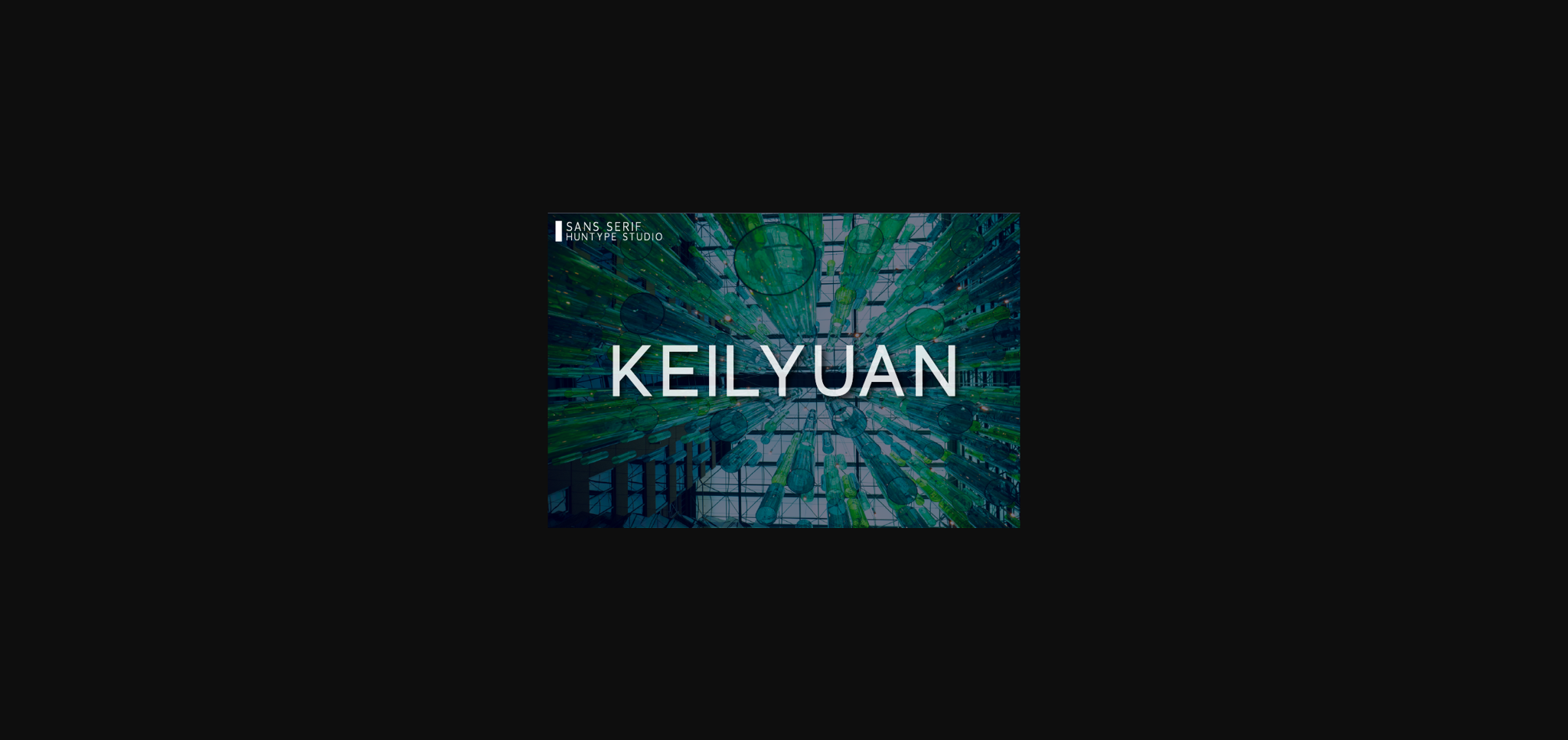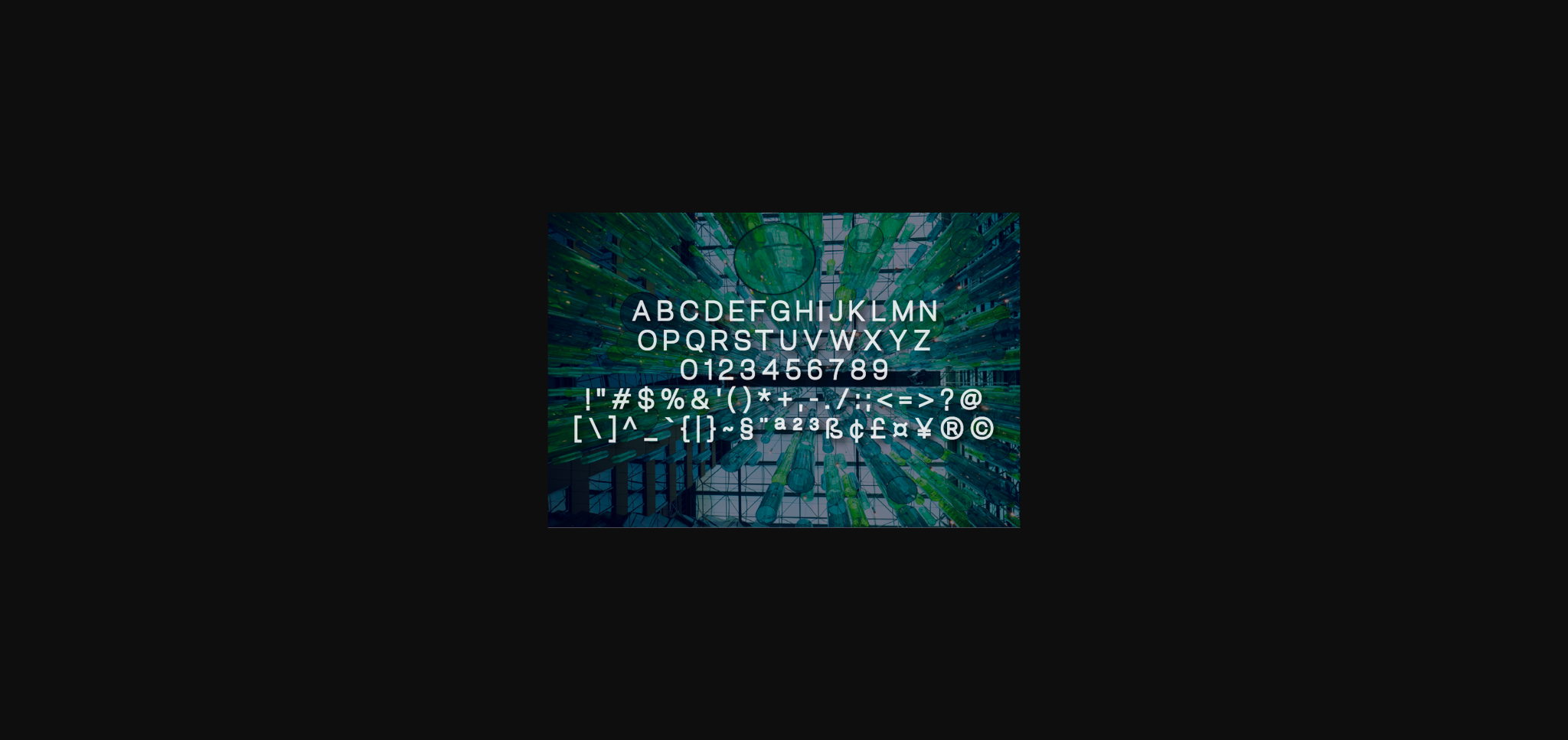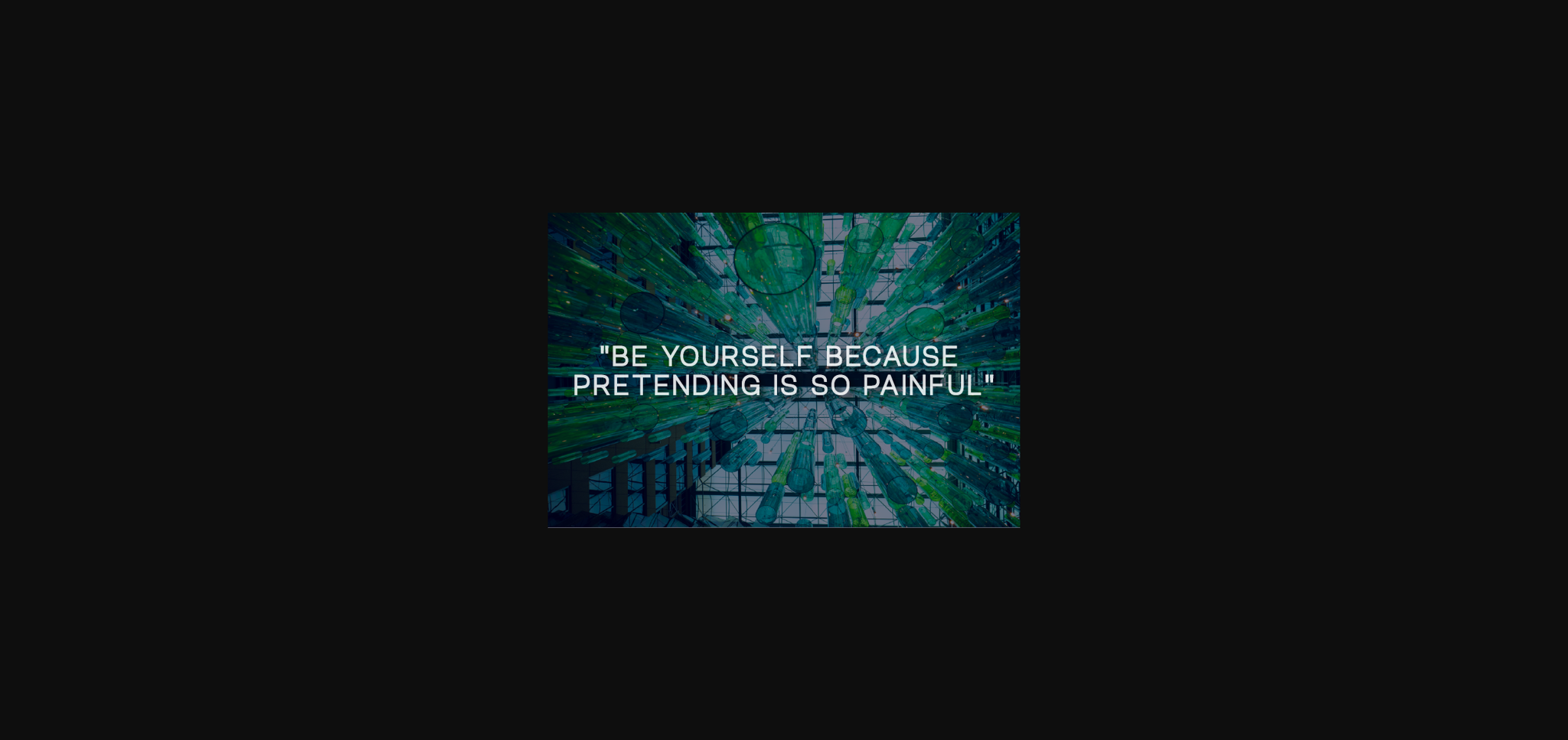
About Keilyuan Font
Keilyuan is a modern and minimalist sans serif typeface. It will look particularly adept when used in logos, branding, packaging design, and much more. This masterfully designed font is a true must-have.